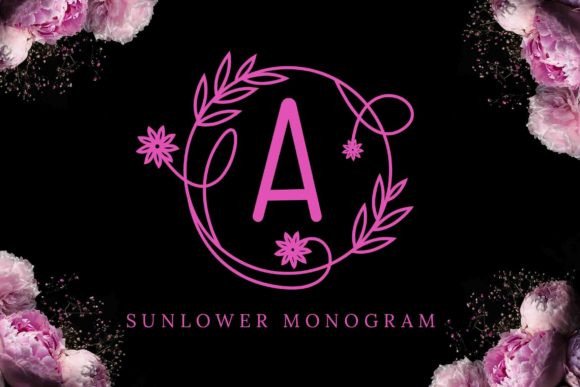
Discovering Sunlower Monogram: A Romantic Typographic Gem
There’s a certain magic that happens when you open a blank brand board and start sketching out ideas. For me, it was the moment I first tried Sunlower Monogram on a logo concept for a boutique identity project. The ornate details of each letter immediately caught my eye, and I knew I had something special on my hands.
A Font That Speaks in Ornament
Sunlower Monogram is an elegant and romantic decorative writing font that feels like a handwritten note from a bygone era. Each letter is adorned with intricate embellishments that add a touch of whimsy and charm. It's not just a font—it's a visual story, told through the delicate curves and flourishes that dance around every character.
The personality of Sunlower Monogram is unmistakable. It exudes a sense of sophistication and grace, making it ideal for projects that want to evoke a sense of luxury or nostalgia. Whether you're designing a boutique logo, a skincare product label, or a handmade shop sign, this font has a way of adding character without overpowering the message.
Testing Sunlower Monogram in Real Design Work
I used Sunlower Monogram in several branding applications, including a café visual refresh, a bakery packaging mockup, and a creative studio identity. In each case, the font performed admirably, especially when used as a headline or accent typeface. On a coffee shop menu, it added a touch of elegance to the name while keeping the rest of the design clean and modern.
When placed on a packaging label, the ornamental details of Sunlower Monogram stood out beautifully against a minimalist background. It worked well as a display font, drawing attention without overwhelming the viewer. However, I noticed that at smaller sizes or in long body text, the intricate embellishments could become slightly distracting. This makes it more suitable for short phrases, headers, or logos rather than lengthy paragraphs.
On a website header, Sunlower Monogram looked stunning, especially when paired with a sans serif font for body text. It added a visual hierarchy that made the content feel more engaging. On social media graphics, it brought a sense of playfulness that aligned perfectly with the brand's aesthetic.
Font Pairing and Stylistic Flexibility
One of the strengths of Sunlower Monogram is its versatility. It pairs beautifully with both serif and sans serif fonts, depending on the desired effect. For a more traditional look, I paired it with a classic serif font like Georgia or Baskerville. For a modern twist, I used it alongside a sleek sans serif such as Montserrat or Roboto.
If you're looking for a complementary font, consider pairing Sunlower Monogram with a script or handwritten font for a more personal feel. However, be mindful of balancing the ornate elements with simpler typography to maintain readability and visual harmony.
Sunlower Monogram also includes various styles, weights, and alternates, which can be useful for creating typographic variety. The inclusion of ligatures and swashes adds another layer of customization, allowing designers to tailor the font to their specific needs.
Limitations and Considerations
While Sunlower Monogram is a standout choice for certain projects, it's not without its limitations. As mentioned earlier, it may not be the best fit for long body text or small sizes where readability is crucial. In formal corporate settings, it might come across as too decorative or playful, which could clash with the expected tone.
It's also worth noting that the ornamental details can sometimes make the font feel less professional in certain contexts. If you're working on a brand identity that requires a more serious or minimalistic approach, you might want to consider alternative fonts that offer a cleaner look.
Before using Sunlower Monogram in client work, I recommend testing it in different formats and sizes to ensure it meets your project's requirements. Always check the commercial font licensing to confirm that it's appropriate for your intended use, whether it's for print-on-demand products, websites, or digital assets.
Final Thoughts on Sunlower Monogram
Sunlower Monogram is a font that brings a unique blend of elegance and romance to any design project. Its intricate details and ornate style make it a favorite among designers who value both aesthetics and functionality. Whether you're crafting a logo, designing packaging, or creating social media graphics, this font has the potential to elevate your work with its distinctive charm.
With the right pairings and thoughtful application, Sunlower Monogram can be a powerful tool in your design toolkit. It's a great choice for brands that want to stand out with a touch of personality and sophistication. Just remember to use it wisely—where it shines brightest is in display and headline roles, not in long-form content or formal settings.